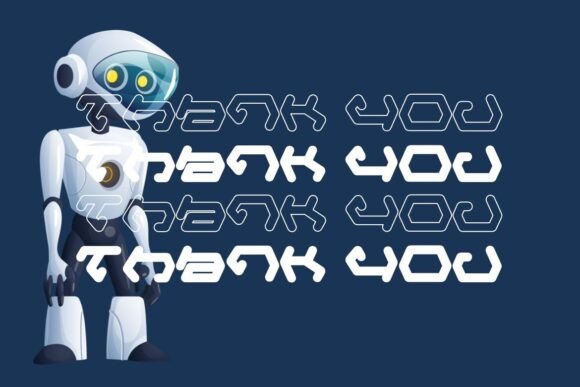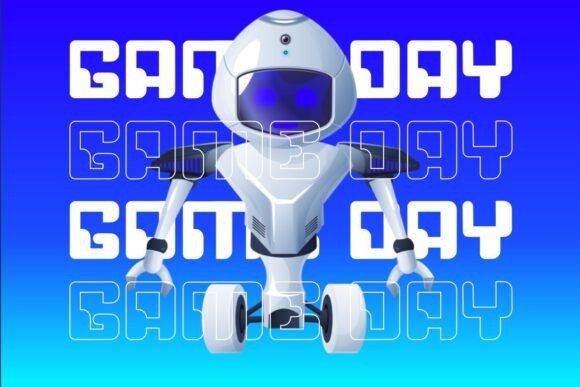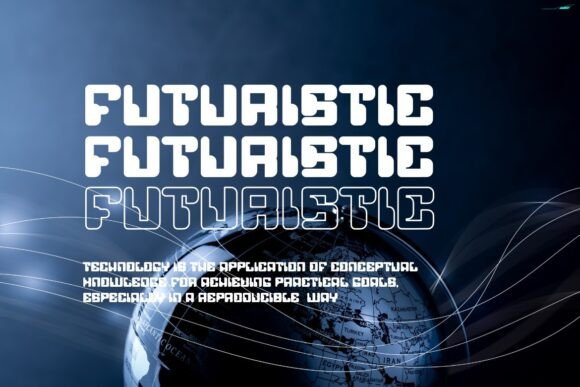
Discover the Futuristic Flair of Flazie Font
As a designer, I’ve had my fair share of late nights scouring for the perfect font to bring a project to life. I recall working on a futuristic-themed branding campaign, feeling stuck until I stumbled upon the “Flazie – Modern Future” song. Its upbeat electronic vibes and smooth melodies sparked inspiration, leading me to uncover the Flazie Font. In this article, I’ll share my journey with this modern font, its features, and how to make the most of it in your designs.
A Personal Encounter with Flazie Font
I was working on a client project that required a fresh, modern look. The brief was to create a design that screamed ‘future.’ As I was brainstorming, I came across the Flazie Font. Its sleek lines and futuristic feel immediately caught my attention. I was excited to dive in and explore its capabilities.
An Honest Review of Flazie Font
Here’s what I love about Flazie Font:
- ✨ Modern and Fresh Look: Flazie Font boasts a clean and contemporary design, perfect for projects that require a modern edge.
- ✅ Highly Versatile: This font can be used across various platforms, from digital media to print.
- 🎉 Excellent for Headings and Titles: Its bold and futuristic style makes it an excellent choice for headings and titles.
However, I did notice a few quirks:
- 🤔 Limited Support for Certain Languages: Flazie Font might not support all languages, so it’s essential to check compatibility before use.
- ⚠️ Not Ideal for Body Text: Due to its bold nature, Flazie Font might not be the best choice for body text, especially for longer content.
Flazie Font comes with a range of OpenType features and glyphs that can enhance your designs. Here are a few tips:
- Use the stylistic alternates to create variations of the font.
- Experiment with glyphs to add unique elements to your design.
The Designer Inspiration Behind Flazie Font
The story behind Flazie Font begins with a group of designers who aimed to create a font that embodies the spirit of the future. Inspired by the “Flazie – Modern Future” song, they crafted a font that blends modernity with a sense of adventure. The result is a font that’s both futuristic and approachable.
| Author | Yumnacreative |
| What is Flazie Font? | Flazie Font is a modern, futuristic font designed for creative projects. |